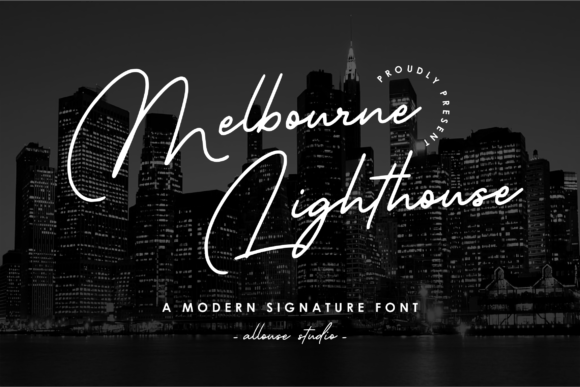
Journey into the world of Melbourne Lighthouse Font, a creation of allouse.studio, where elegance and distinction intertwine. This Modern Signature Font is not just a tool; it's an art form, a stroke of genius that transforms your designs into masterpieces. Melbourne Lighthouse is more than letters and glyphs; it's a gateway to creativity, a catalyst for unforgettable impressions.
With Melbourne Lighthouse as your trusty companion, you'll elevate your designs to unprecedented heights. Its delicate strokes and graceful curves exude an aura of sophistication that commands attention. Whether it's a product packaging that demands remembrance or a branding project that seeks to leave an indelible mark, Melbourne Lighthouse delivers.
Melbourne Lighthouse shines in the realm of magazines, adding an air of elegance and allure to every page. Social media posts adorned with Melbourne Lighthouse's charm captivate audiences, leaving them spellbound by your creativity. Weddings adorned with Melbourne Lighthouse's beauty become timeless memories, etched in the hearts of all who witness it.
But Melbourne Lighthouse's versatility doesn't end there. It's the perfect font for expressing words that dance above the background, words that yearn to be seen and felt. With Melbourne Lighthouse, your designs transcend the ordinary, becoming extraordinary expressions of your unique style.
So, if you seek a font that's more than just a collection of characters, if you desire a font that ignites your imagination and fuels your creative spirit, look no further than Melbourne Lighthouse. Let it be your guiding light, illuminating your path to design excellence. Dive into the world of Melbourne Lighthouse Font today and unlock the boundless possibilities that await.